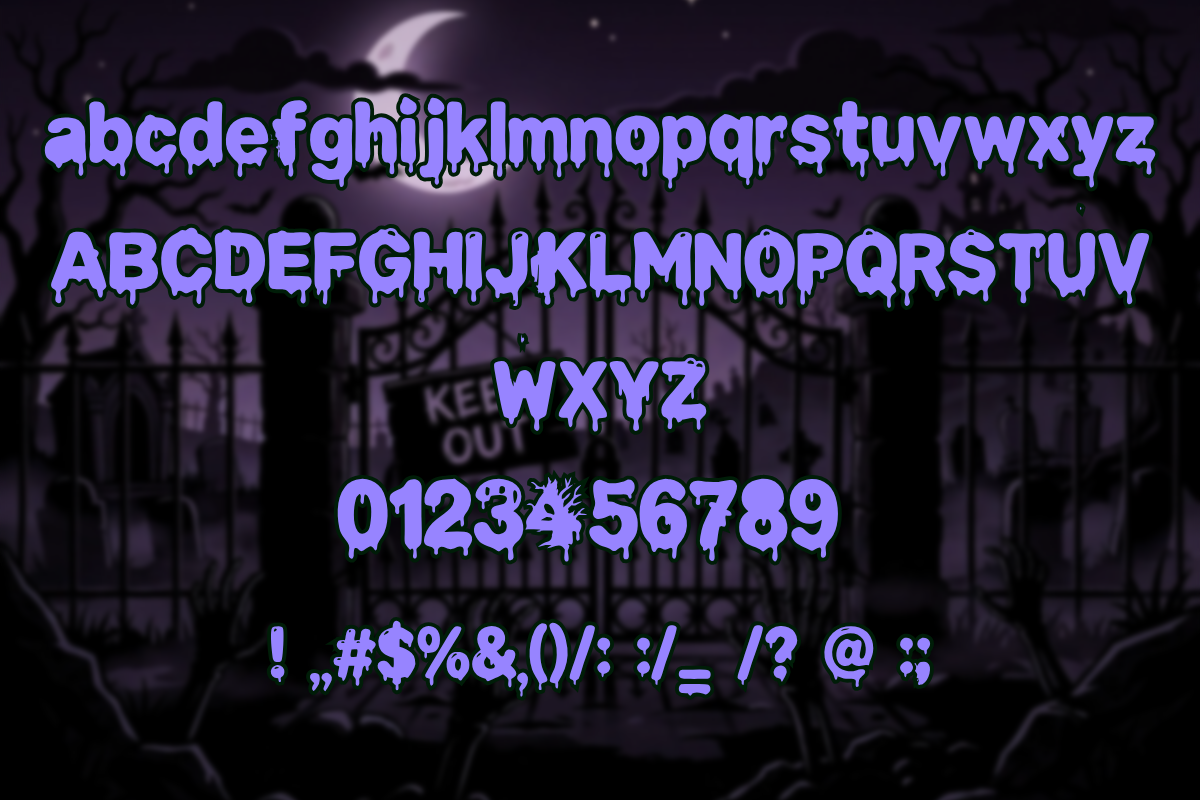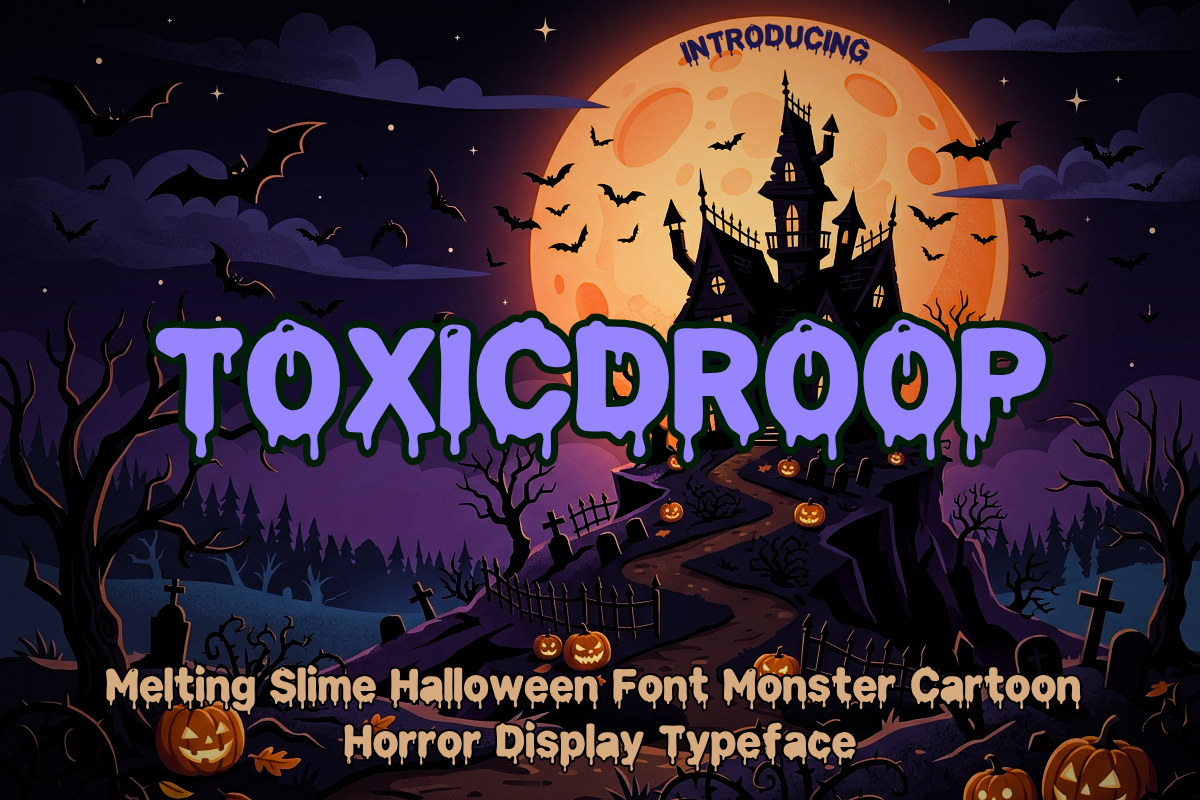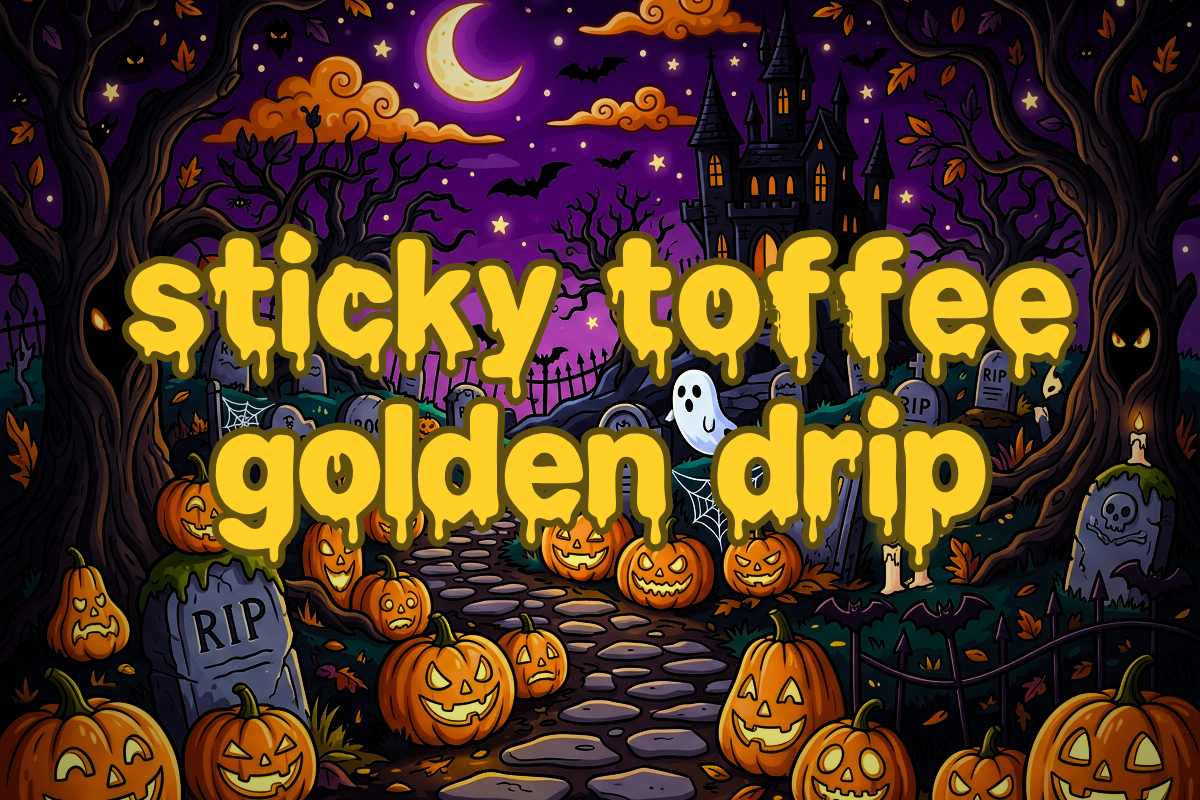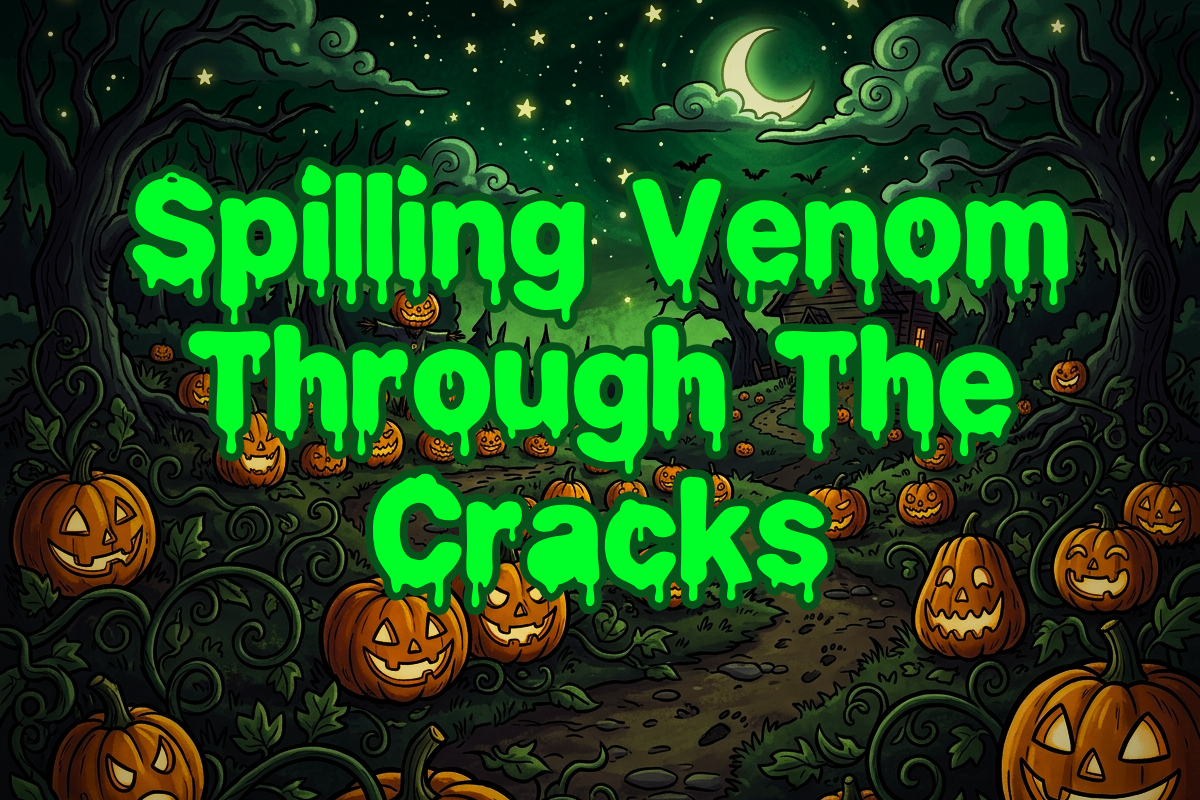
ToxicDroop Melting Slime Font
Get slimed this Halloween with ToxicDroop — an outrageously fun, dripping monster cartoon horror Halloween display typeface. Combining the nostalgic gross-out aesthetic of 90s Saturday morning Halloween monster cartoons, radioactive toxic waste barrels, and Y2K streetwear graffiti, ToxicDroop features bold bulbous letterforms with melting viscous drips and glossy bubble cut-out highlights.
ToxicDroop is designed to inject instant personality into Halloween trick-or-treat bags, vinyl sticker packs, sour candy wrappers, Halloween craft projects, skateboard decks, and arcade video game branding. Every drop and bubble highlight is meticulously constructed as a single solid vector contour, guaranteeing effortless weeding on vinyl cutters and flawless sublimation transfers.
Why Designers Love This Font
Irresistible Melting Halloween Slime Drips: Character-rich melting drips and glossy highlights that make every Halloween project pop.
Crafter & Cutter Perfection: Zero jagged stray points or overlapping contours — weed vinyl easily on Cricut and Silhouette for Halloween.
Full 93-Character Coverage: Complete Uppercase (A–Z), Lowercase (a–z), Numerals (0–9), and full expressive punctuation suite.
Halloween trick-or-treat tote bags, monster costume party flyers, and spooky kids apparel
Vinyl sticker packs, die-cut decals, and skateboard deck graphics
Sour candy wrappers, gummy packaging, radioactive soda cans, and snack branding
Cricut and Silhouette vinyl cutting, HTV heat transfers, and sublimation mugs
Arcade video game logos, mobile game UI, and YouTube gaming channel banners
Children's monster comic books, slime science kits, and animated title cards
Escape room 'toxic biohazard' signage, laser tag arena branding, and fun park graphics
Toy packaging, collectible slime tub labels, and novelty gift branding
Craft brewery sour beer cans, radioactive energy drinks, and cocktail menus
Y2K streetwear, cartoon graffiti apparel, t-shirts, and neon hoodies
Character Coverage: Full Uppercase (A–Z), Lowercase (a–z), Numerals (0–9), and full punctuation suite (! @ # $ % & * ( ) _ + - = [ ] { } | ; : , . < > / ? ' ")